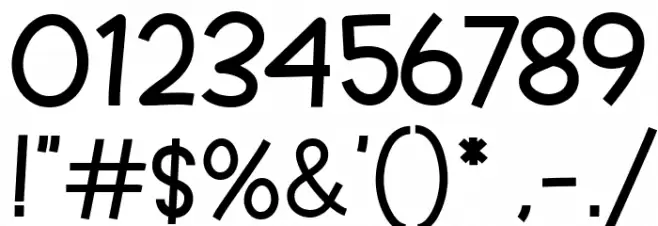
CUTE MIAWW Regular Font
CUTE MIAWW Regular Description
This playful and whimsical font features a handwritten style with a friendly and approachable appearance. The characters are slightly irregular, adding a touch of personality and charm. The strokes are bold and rounded, giving it a soft and inviting look. The uppercase and lowercase letters maintain a consistent style, with a slight slant that enhances its casual feel. Numbers and special characters are designed to match the overall aesthetic, making it versatile for various uses. The font's informal nature makes it ideal for projects that require a fun and engaging tone.
A playful, handwritten font with bold, rounded strokes and a casual, friendly style from Cartoon fonts.
- Proposed Projects: Ideal for children's books, greeting cards, playful branding, and social media graphics.
- Overall Style: Playful
- Use Case: Headlines, Logos, Informal Text